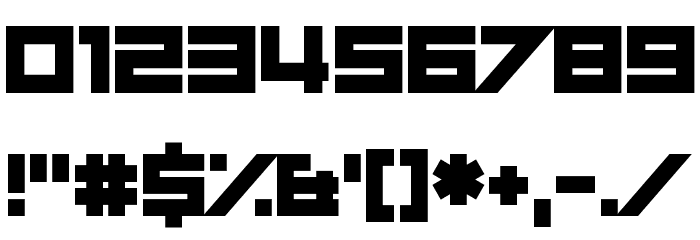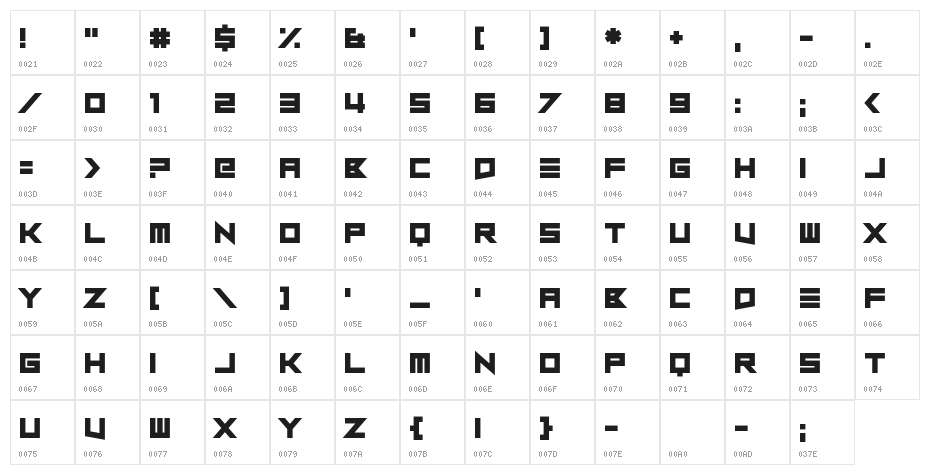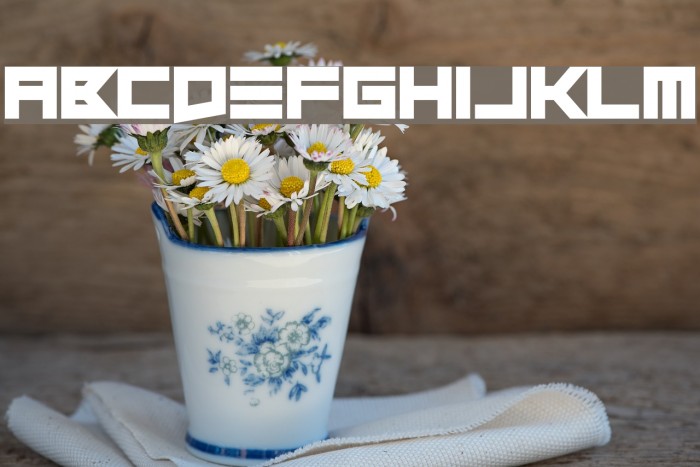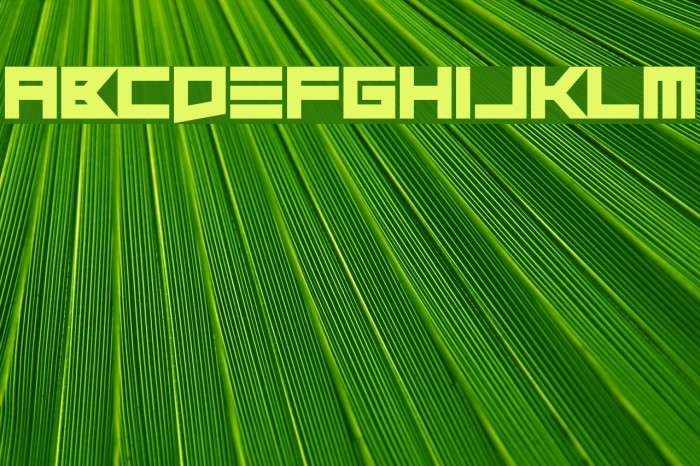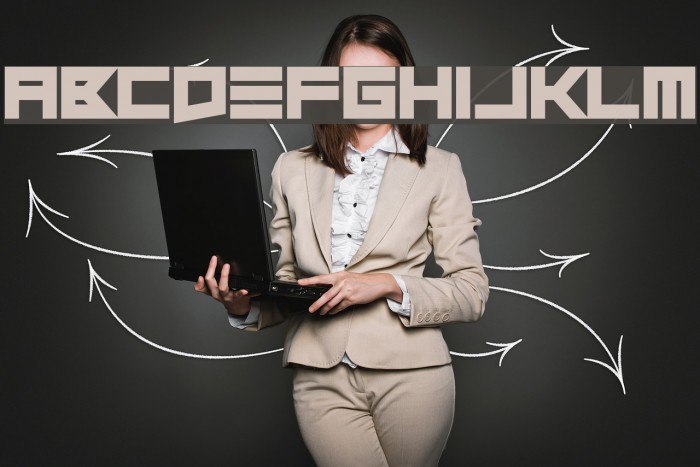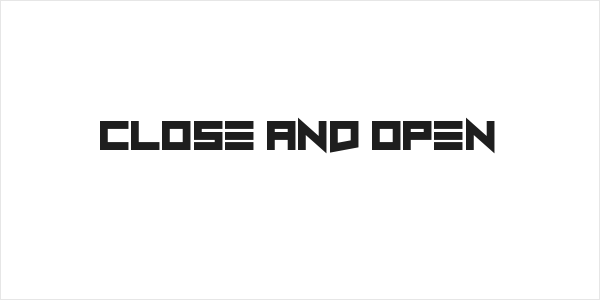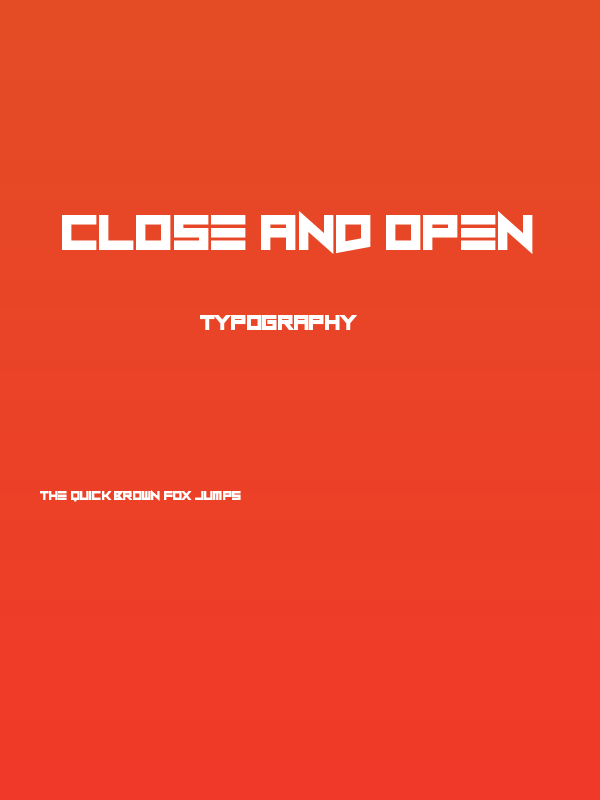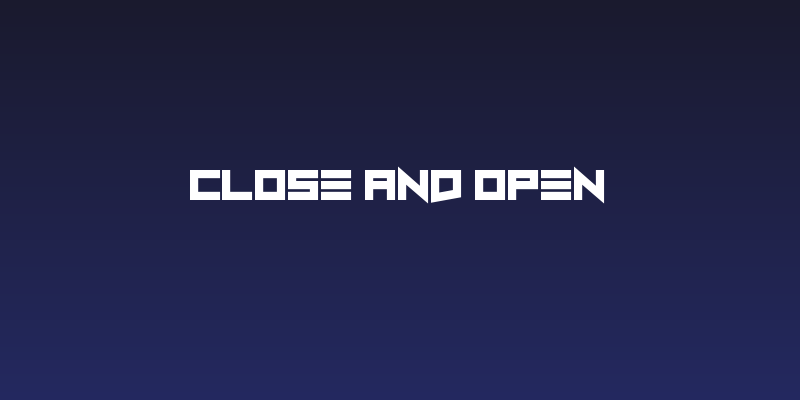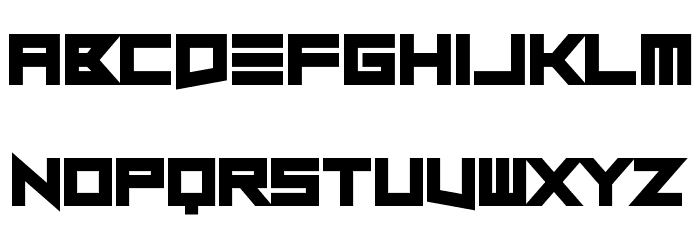
Close and Open Font
Close and Open Description
This font features a bold, geometric style with sharp angles and a futuristic appearance. The characters are constructed with thick, uniform strokes, giving them a strong and impactful presence. The design incorporates unique cutouts and angular shapes, creating a sense of movement and modernity. The uppercase and lowercase letters maintain a consistent style, while the numerals and special characters complement the overall aesthetic. This font is ideal for projects that require a bold and striking visual impact, such as branding, posters, and digital media.